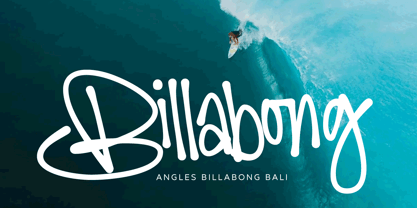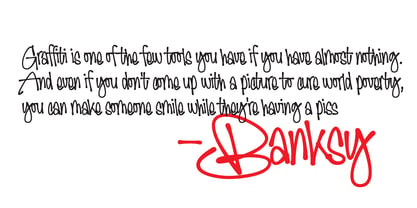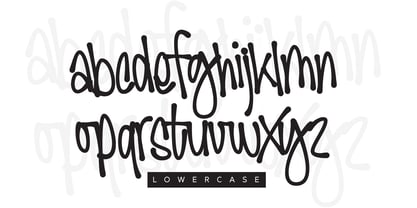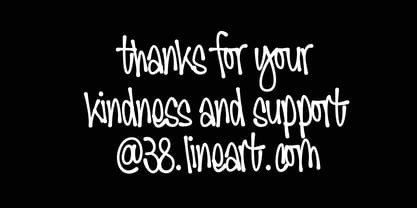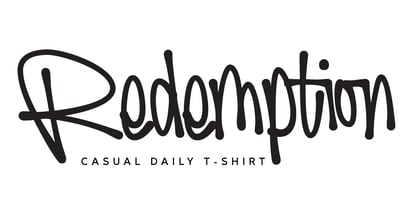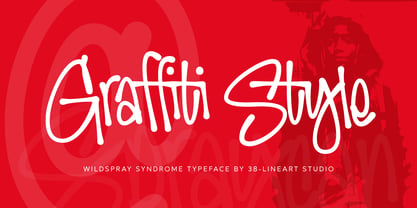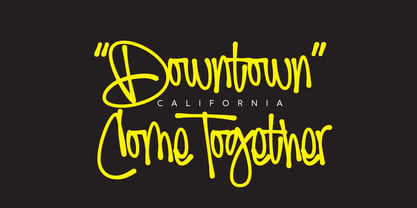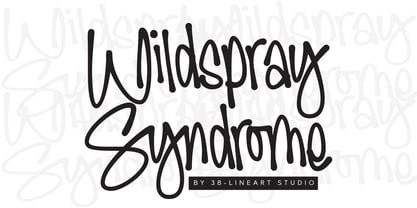
Wildspray Syndrome
The Wildspray Syndrome Font Family was designed by Muhammad Ridha Agusni and published by 38-lineart. Wildspray Syndrome contains 1 styles. More about this family
“Wildspray Syndrome” is a vibrant and dynamic graffiti font that captures the essence of urban street art. With its bold strokes, expressive curves, and distinctive spray-paint aesthetics, this font is designed to bring energy and creativity to any project. Every character reflects the raw spontaneity of graffiti, mimicking the natural flow of spray paint on walls. WildSpray’s artistic style makes it perfect for a wide range of applications, from posters and album covers to streetwear branding and digital art. Inspired by the lively spirit of street culture, this font is a celebration of freedom and self-expression. Whether you're designing for urban events, bold branding, or artistic projects, WildSpray delivers an unmistakable visual impact that speaks to the heart of contemporary creativity.
Designers: Muhammad Ridha Agusni
Foundry: 38-lineart
38-Lineart Studios is an Indonesian-based type foundry owned and managed by Muhammad Ridha Agusni. What began in 2018 as a hobby, inspired by his background in architecture, has grown into a dedicated pursuit of font creation. Muhammad brings his architectural precision to type design, shaping each letter with care and purpose.Working from his home, Muhammad's design process is grounded in simplicity and focus. In the comfort of his familiar surroundings, he applies his skills to create fonts, appreciating the straightforward pleasures that come with his work.